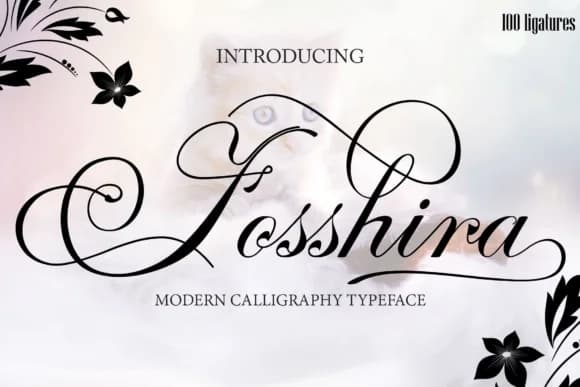
Fosshira Script Font by Arie Design is a flowing handwritten calligraphy typeface that captures the organic beauty of traditional penmanship in a digital format. With its natural letterforms and authentic stroke variations, this font excels in creating wedding invitation suites, personalized monograms, boutique product packaging, and custom greeting cards that communicate genuine craftsmanship and attention to detail. The versatility of Fosshira makes it equally suited for luxury brand identities, social media graphics requiring an artisanal aesthetic, and personal stationery where authenticity resonates with discerning audiences seeking something beyond standard typefaces.
Beyond formal applications, Fosshira's charming character extends to casual creative projects including DIY craft designs, artisanal label creation, and decorative text applications where a handmade sensibility enhances visual appeal. The typeface maintains legibility across digital and print mediums while preserving the handcrafted visual quality that distinguishes premium design work from mass-market alternatives. Each letterform reflects careful attention to the nuances of hand-drawn typography, avoiding the sterile, uniform appearance of purely digital fonts while still offering the consistency necessary for professional applications and repeated use.
Fosshira Script Font is a script font that shines as a display or heading face. Pair it with a clean sans-serif or serif font for body text β the contrast creates a clear hierarchy while the two styles stay balanced and easy to read.